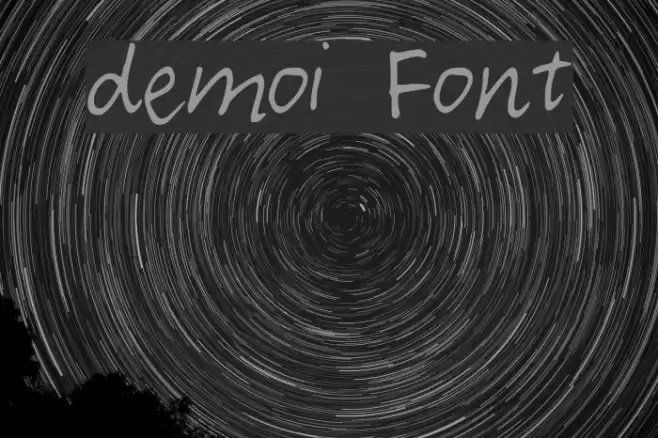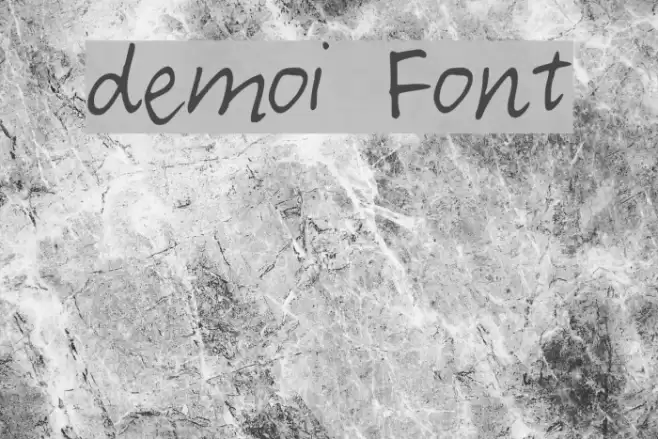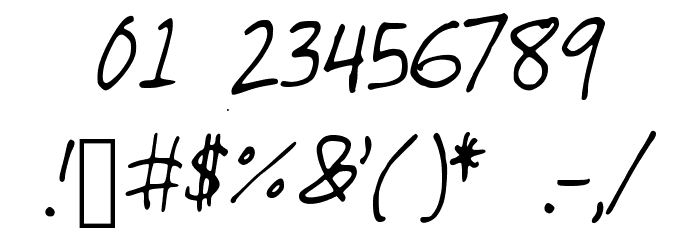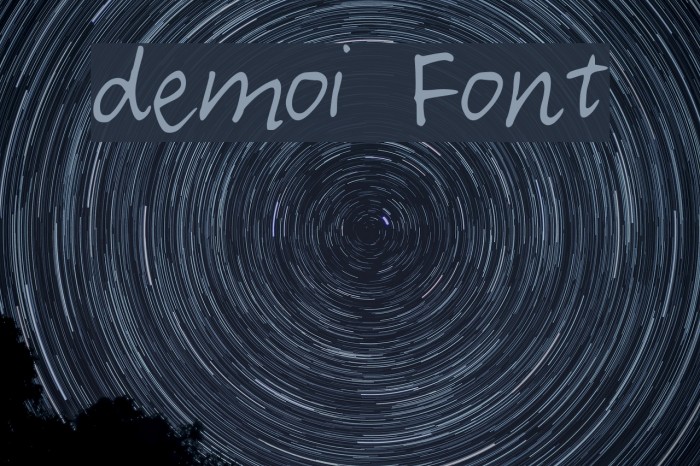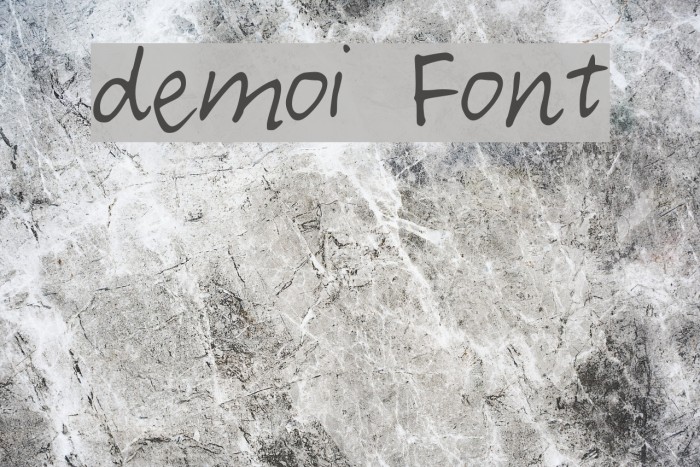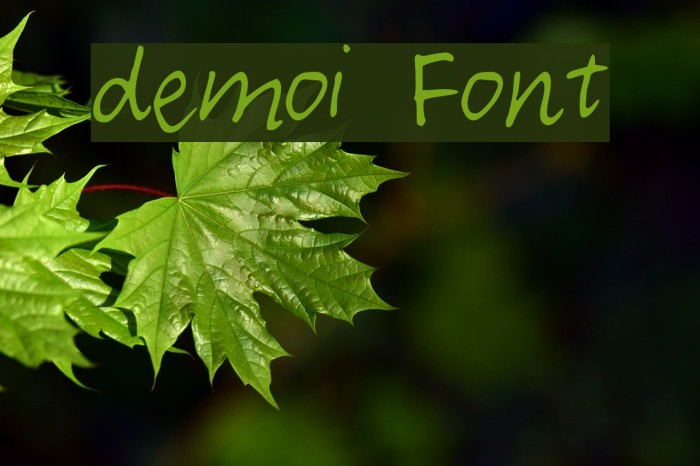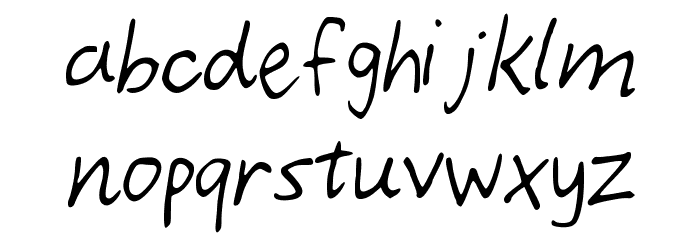
demoi Font
demoi Description
This font exudes a casual, handwritten style with a playful and informal appearance. The characters are slightly slanted, giving it a dynamic and lively feel. The strokes are uneven, mimicking the natural flow of handwriting, which adds a personal touch. The uppercase letters are bold and prominent, while the lowercase letters maintain a consistent flow. Numbers and special characters are clearly defined, maintaining the overall handwritten aesthetic. This font is perfect for projects that require a personal, approachable, and friendly tone.
A casual, handwritten font with a playful and informal style from Handwritten fonts.
- Proposed Projects: Ideal for greeting cards, personal notes, informal invitations, and creative projects that require a personal touch.
- Overall Style: Casual, Playful
- Use Case: Headlines, Informal text, Creative projects